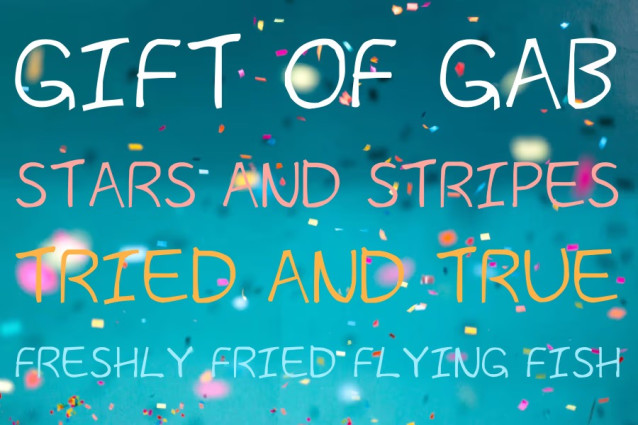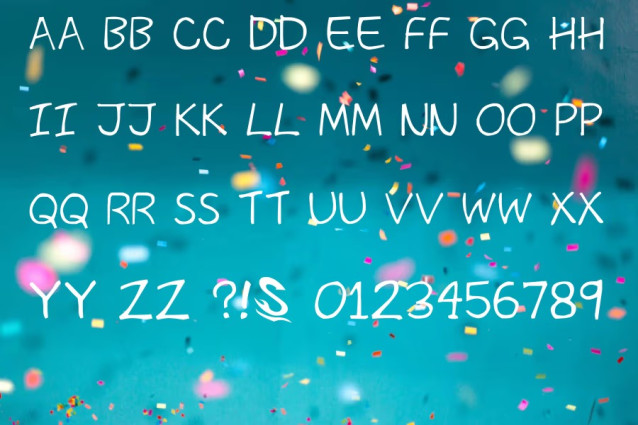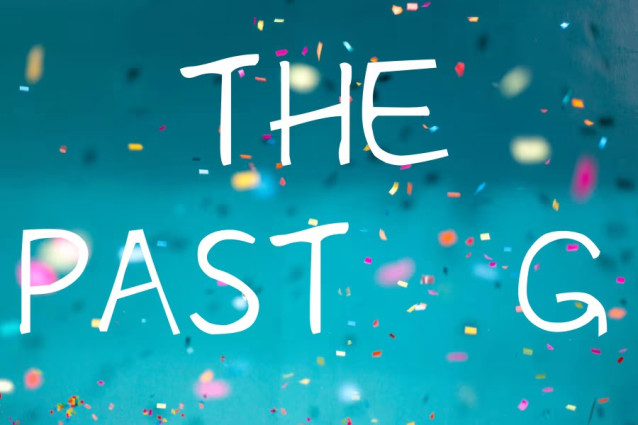
The Past__G Font
The Past__G Font Regular feels like a note hastily sketched on a chalkboard. The characters sway gently on the baseline and alternate between wide rounded curves and tall, slender stems, giving the alphabet an animated, energetic personality. It’s the sort of handwriting that makes you think of diaries, doodles and after class notes.
This light‑hearted quality makes the font perfect for projects where a personal touch is essential. It works beautifully on posters, packaging, invitations and children’s books, and can lend warmth to social media graphics or branding for artisanal goods. Use it anywhere you want to convey spontaneity and human connection without sacrificing readability.